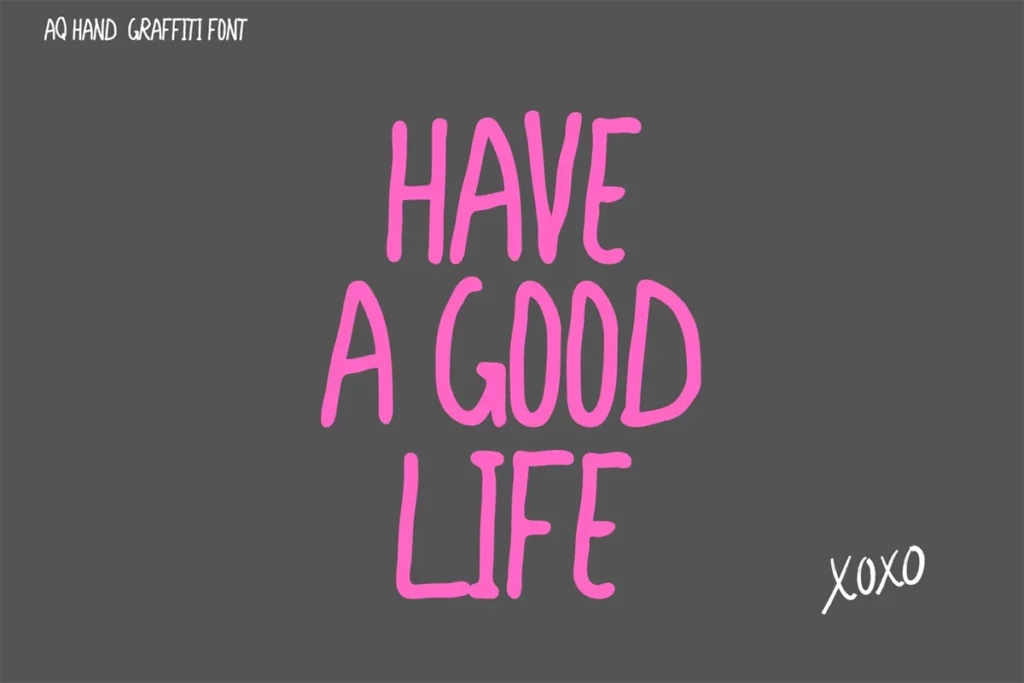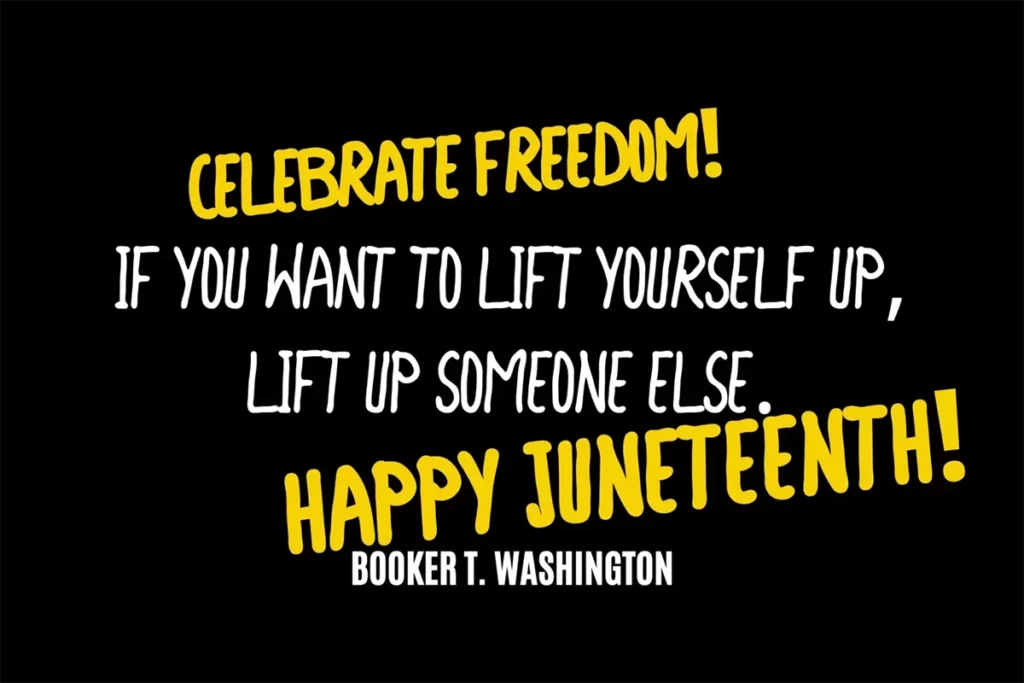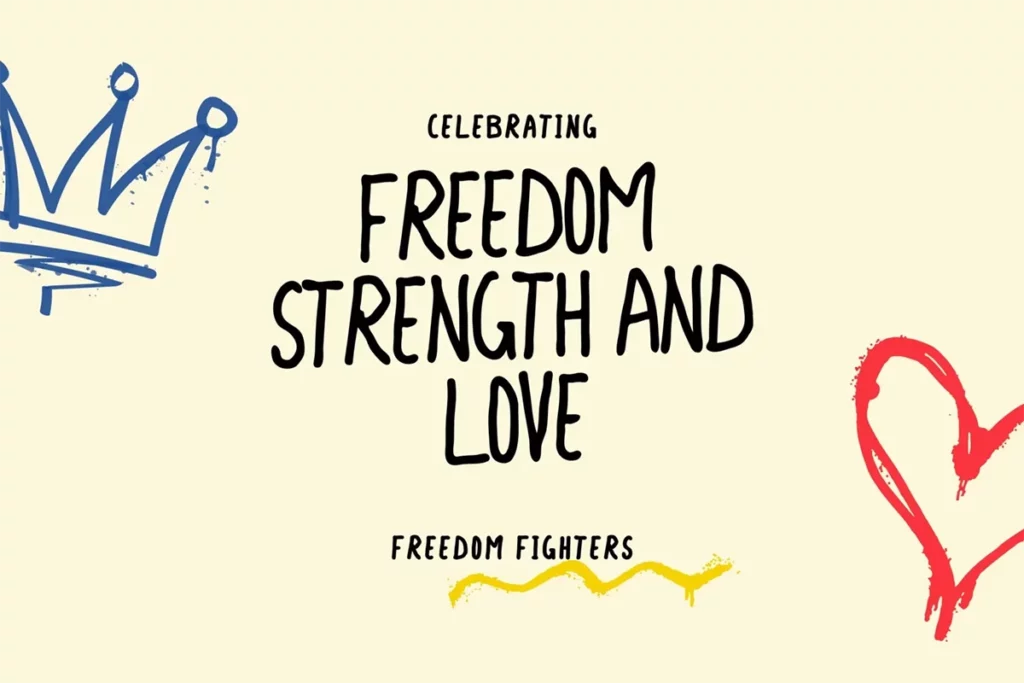
Street Art Style – Free AQ Hand Graffiti Font
Hey there, creators! Looking for a font that feels bold, fun, and super energetic? Meet AQ Hand Graffiti Font, a cool all-caps font with a handmade vibe. It’s perfect for those who love adding a personal touch to their designs. Whether it’s posters, quotes, or social media posts, this font will make your message pop!
This font comes in two different weights, so you can mix things up and keep your designs fresh. Its playful strokes and graffiti-inspired style bring that urban, street art look to life. Plus, the uneven lines give it a real hand-drawn feel, making your work stand out from the crowd.
Want to give your designs a lively, bold look? AQ Hand Graffiti Font is just what you need. Try it out for your next project, and let your ideas shine with a font that speaks loud and clear!
| Styles Included | Regular and Bold |